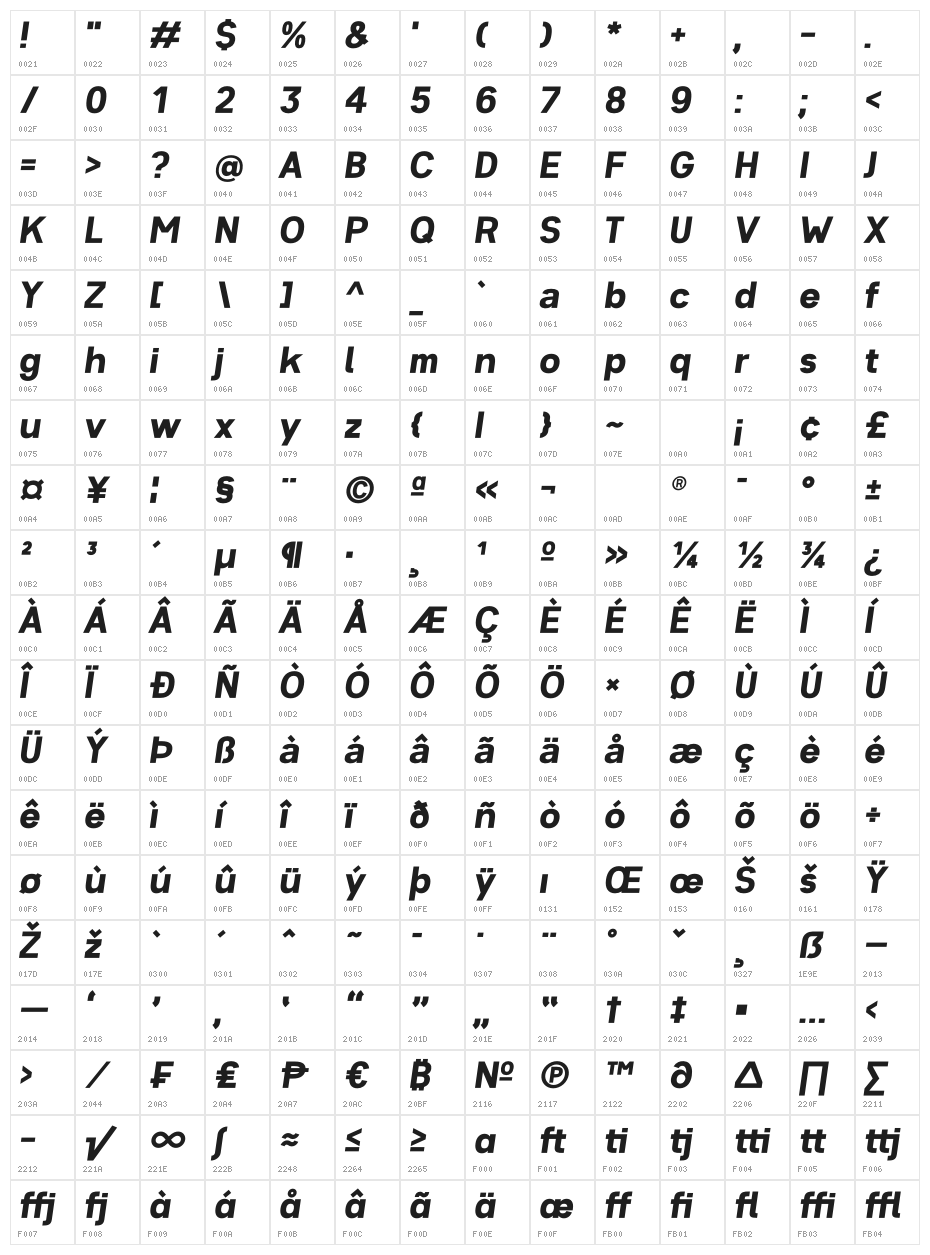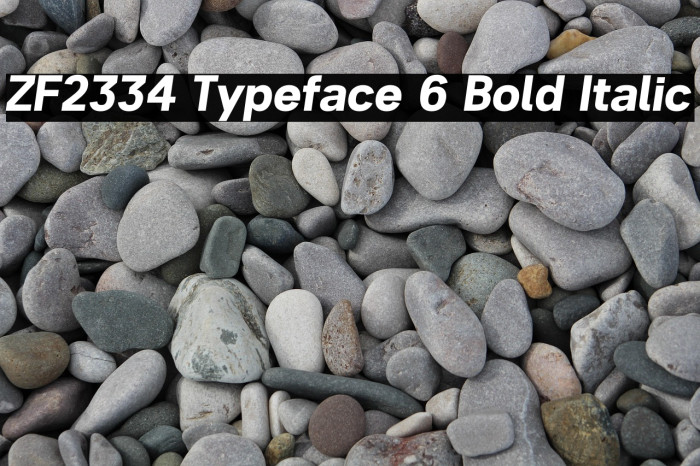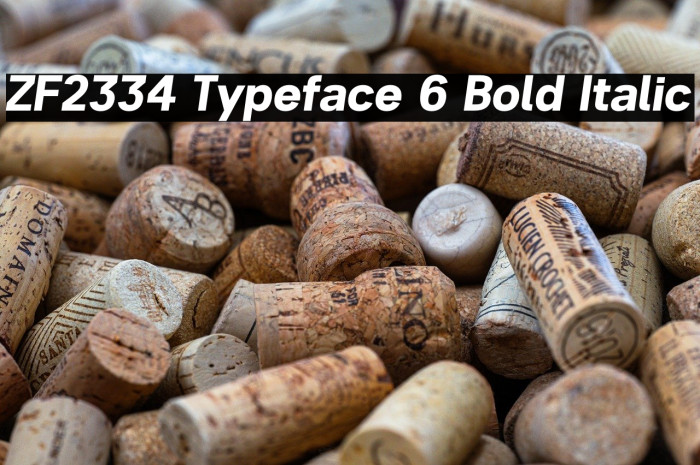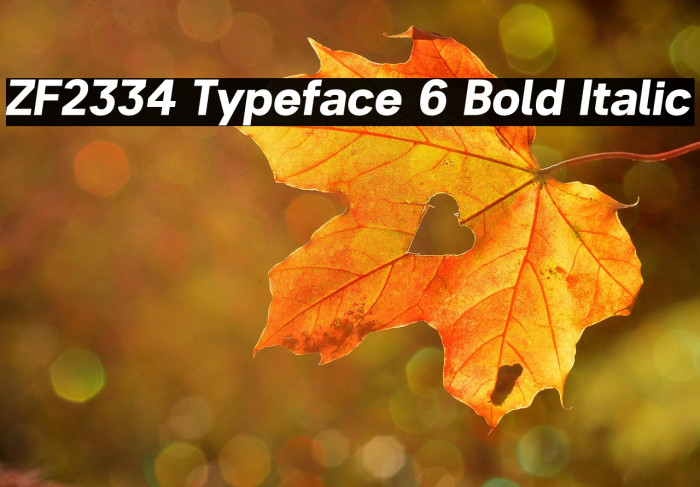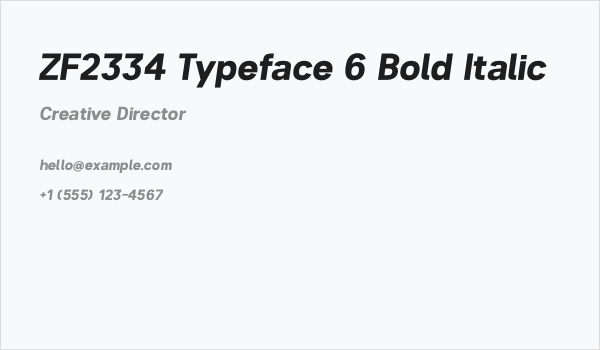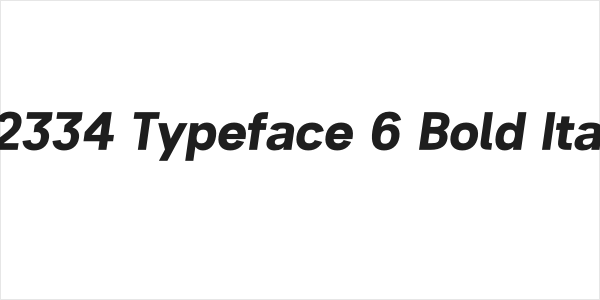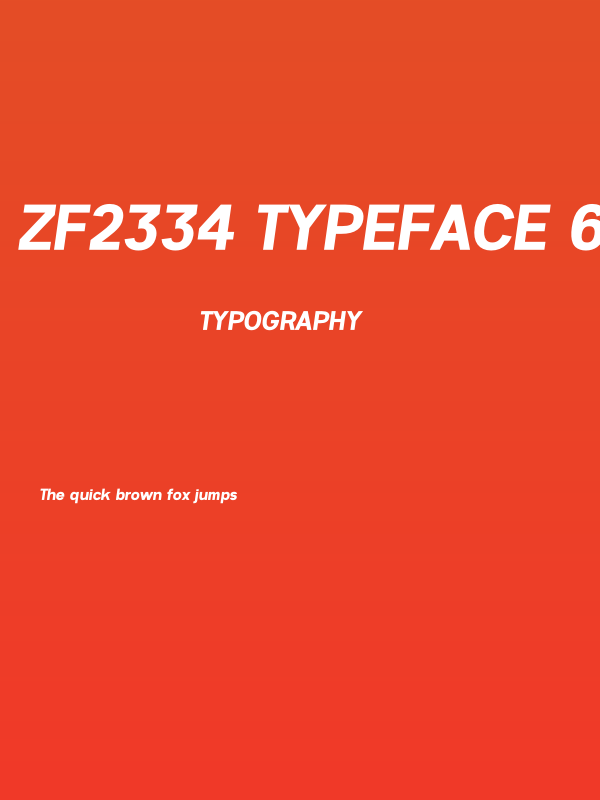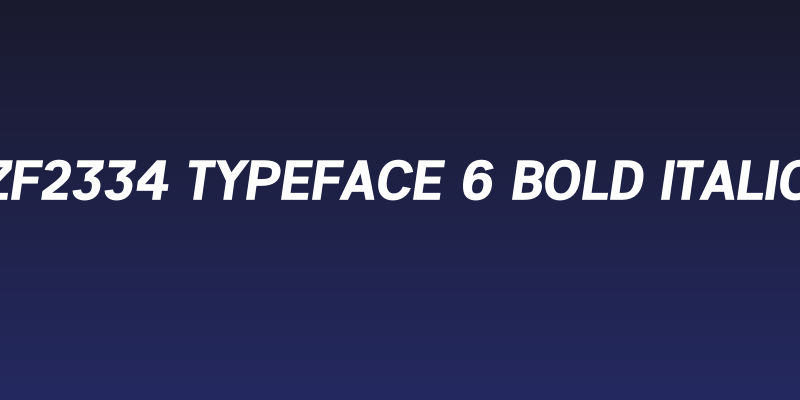
ZF2334 Typeface 6 Bold Italic Font
ZF2334 Typeface 6 Bold Italic Description
This typeface features a bold and italic style, characterized by its strong and dynamic appearance. The letters are designed with a slight slant, giving them an energetic and forward-moving feel. The strokes are thick and consistent, providing a robust and impactful look. The overall design is modern, with clean lines and a professional aesthetic. The spacing between characters is normal, ensuring readability while maintaining a compact appearance. This font is versatile, suitable for various design projects that require a bold statement.
| Proposed Projects | Ideal for branding, advertising, headlines, and any project that requires a strong visual impact. |